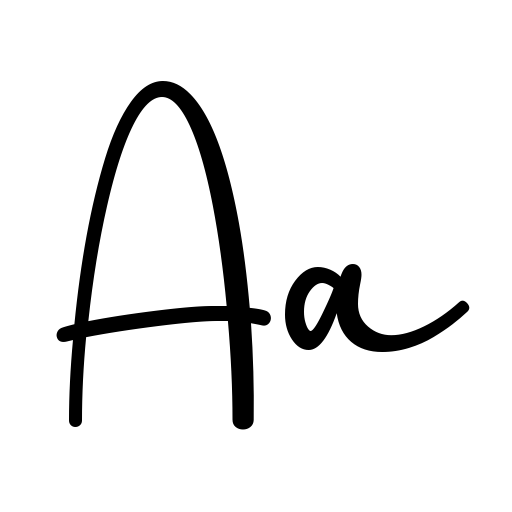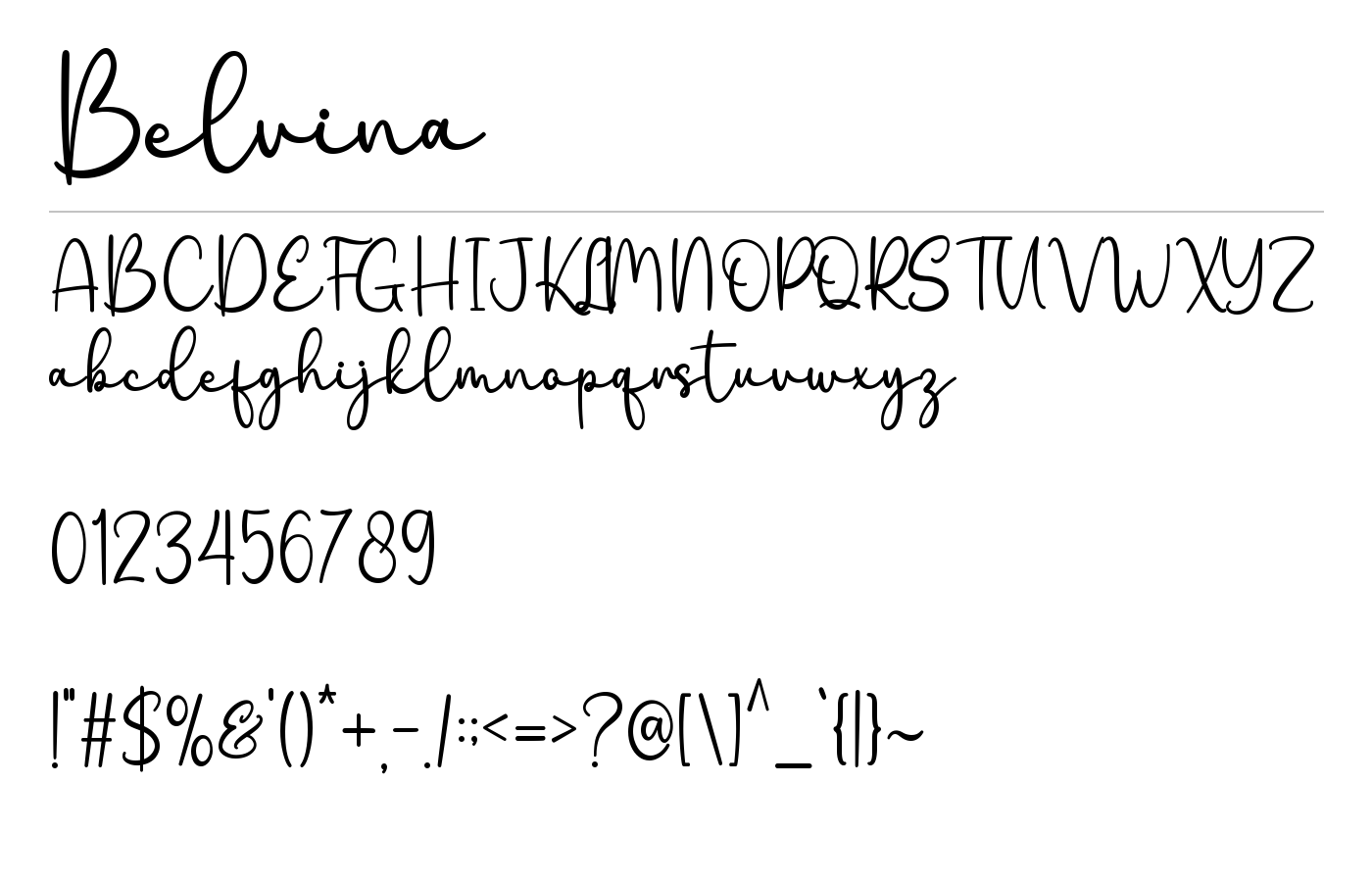
Belvina is a charming handwritten script font with a casual and friendly feel, featuring a slender weight and a slightly tall x-height that enhances readability. Its smooth, flowing letterforms combine playful curves and delicate lines, making it ideal for personal branding, invitations, and creative projects that seek a warm, approachable touch. This font works well for headlines and logos where a unique, hand-crafted impression is desired.
Belvina Font
About Belvina Font
| Designer | Risma Ramawi |